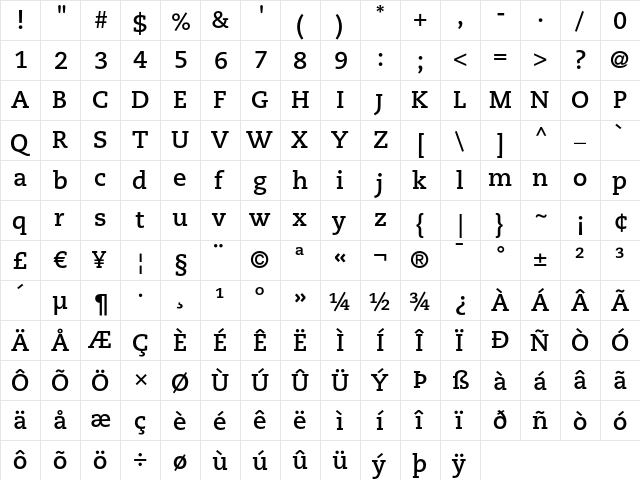
PMN Caecilia LT 75 Bold
Design Context for PMN Caecilia LT Typeface
PMN Caecilia LT takes a measured approach to typography — its balanced proportions and neutral character make it a reliable workhorse for both digital and print work. The heavy weight commands attention and anchors typographic hierarchies.